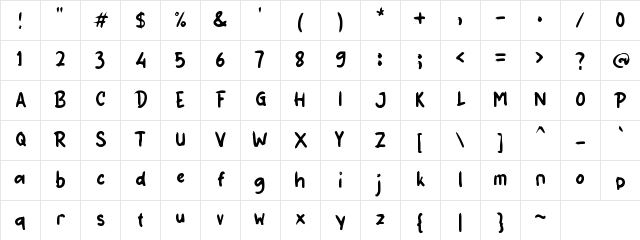
f Figuran Regular Free Font
f Figuran Regular
Designer: Wahyu Eka Prasetya
Design Context for f Figuran
f Figuran is a composed and adaptable typeface that performs quietly and consistently across a wide range of design contexts.